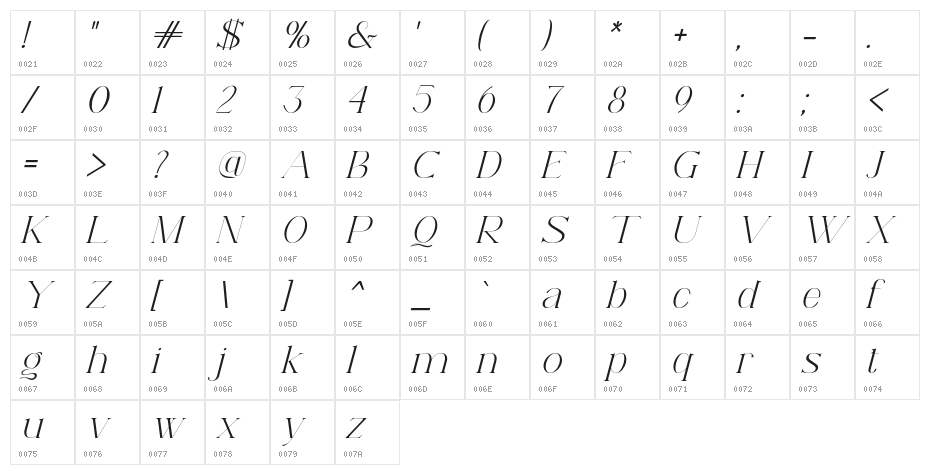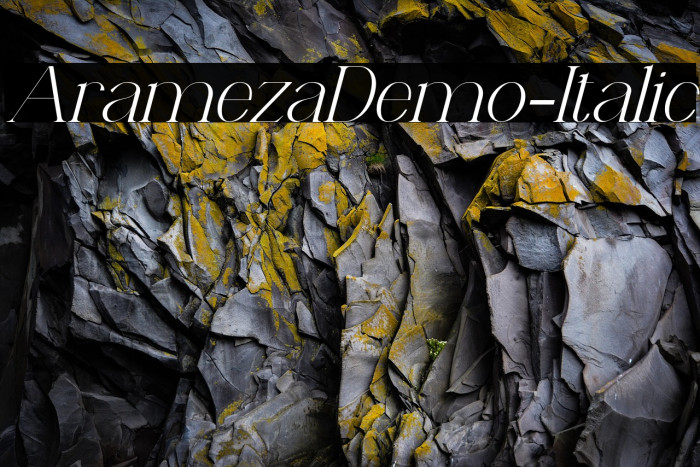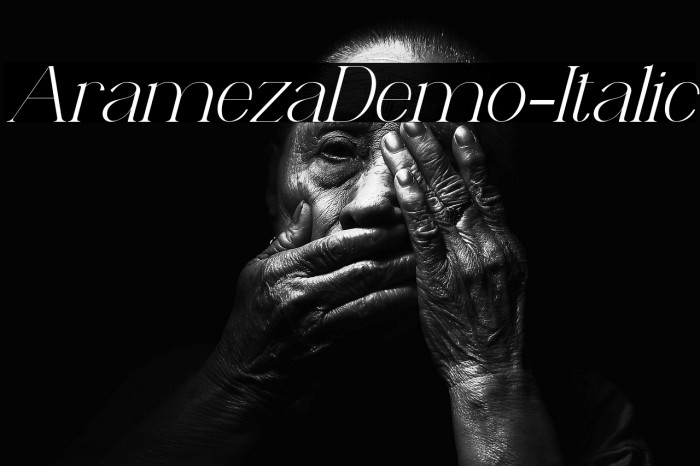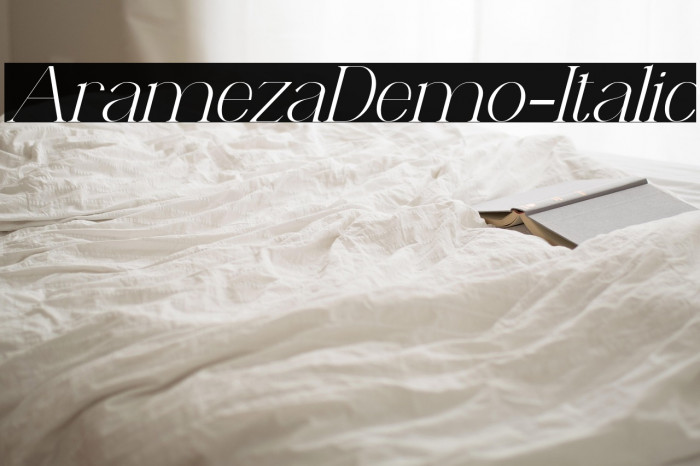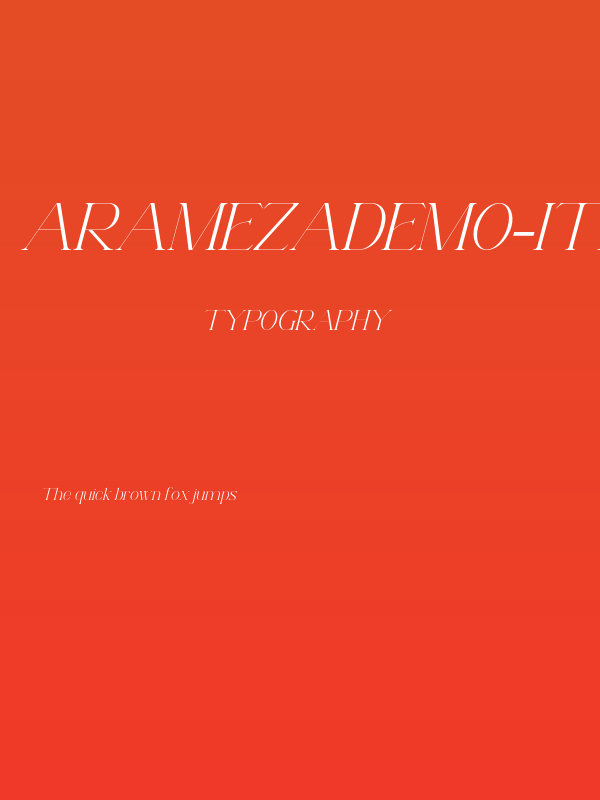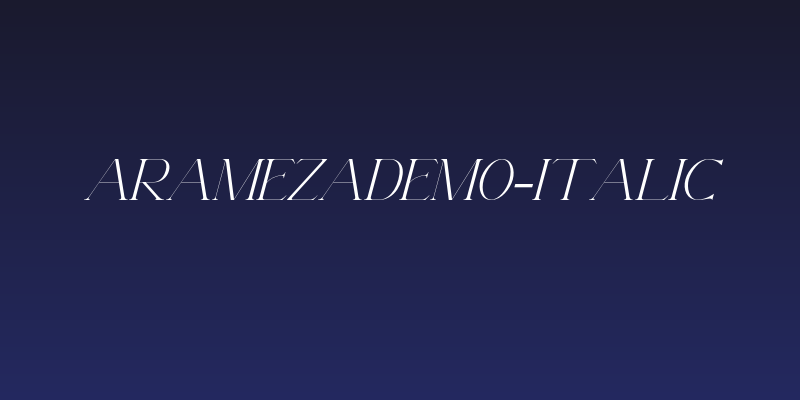
AramezaDemo-Italic Font
AramezaDemo-Italic Description
This elegant and sophisticated font features a refined italic style with a high contrast between thick and thin strokes. The characters exhibit a graceful slant, enhancing their fluidity and movement. The uppercase letters are tall and commanding, while the lowercase letters maintain a harmonious balance with their slightly elongated forms. The numerals are stylish and consistent with the overall aesthetic, and the special characters are designed with the same attention to detail. This font's delicate curves and sharp serifs contribute to its classic yet modern appeal, making it suitable for a variety of design applications.
| Proposed Projects | Ideal for luxury branding, wedding invitations, editorial design, and high-end product packaging. |